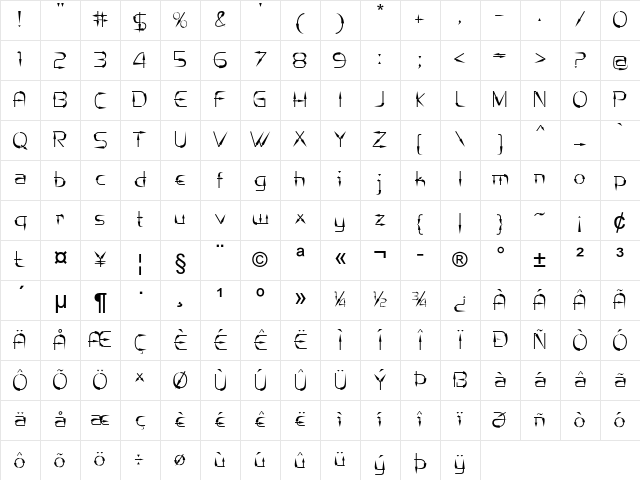
Trenstan Regular
Design Context for Trenstan
Trenstan is a composed and adaptable typeface that performs quietly and consistently across a wide range of design contexts.